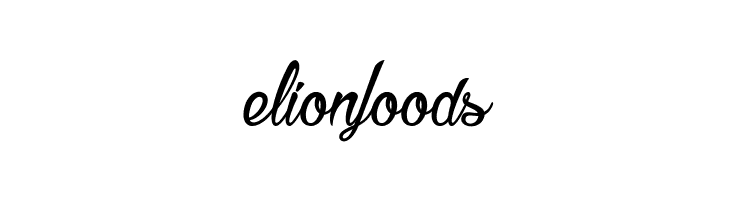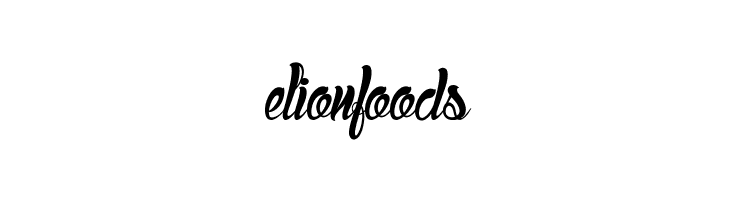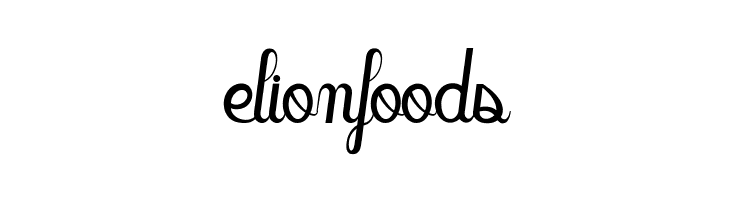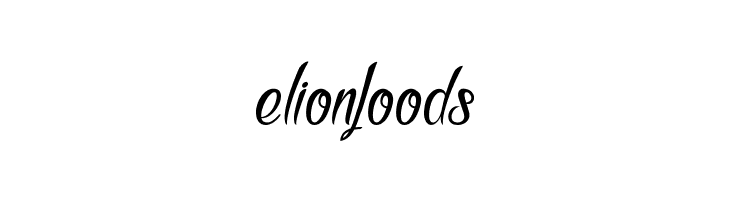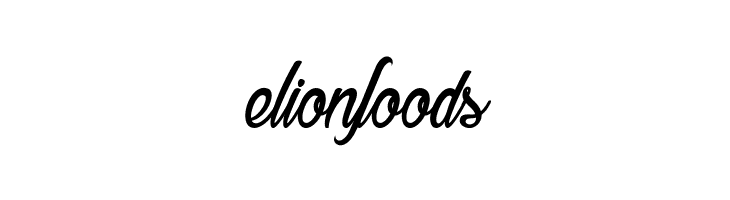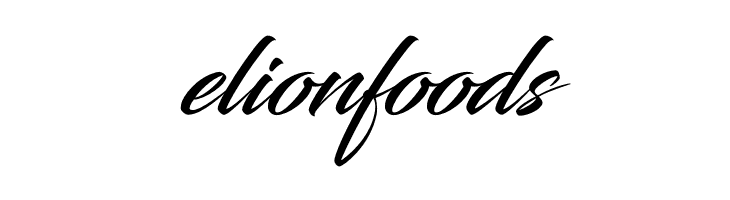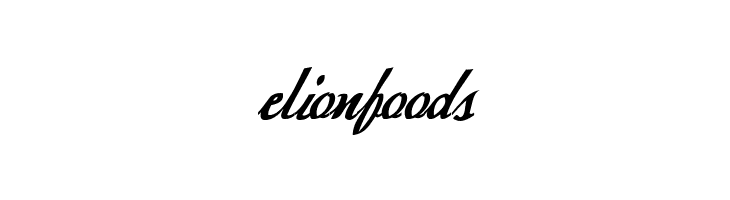
A sophisticated script font with elegant, flowing letters and decorative uppercase characters.
An elegant, cursive font with bold, flowing characters.
A modern, elegant font with a mix of sleek uppercase and script-like lowercase letters.
A dynamic and elegant script font with a cursive style and smooth curves.
A sophisticated and elegant script font with flowing, cursive letterforms.
A flowing, elegant script font with interconnected letters and a sophisticated style.
A sophisticated and elegant script font with ornate uppercase letters and smooth, readable lowercase letters.
A dynamic and elegant script font with flowing, cursive letterforms.